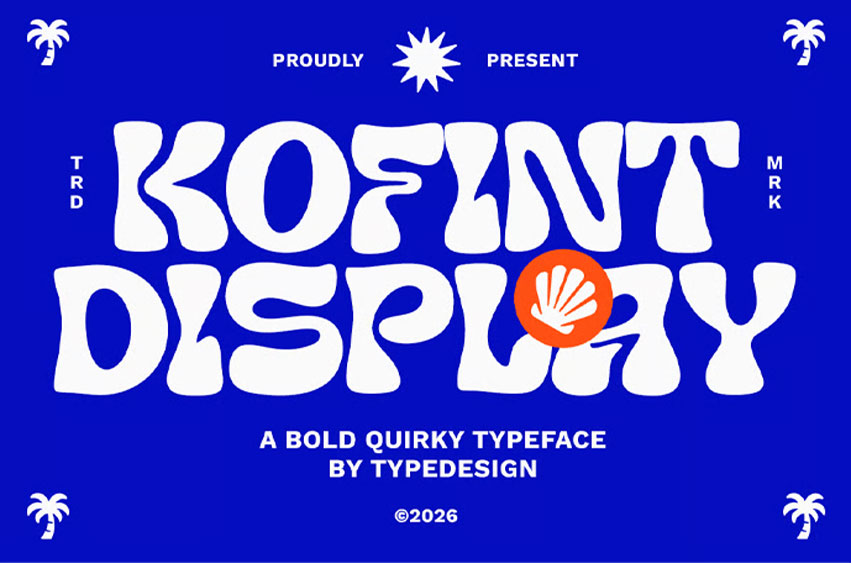
Kofint Font is a bold and expressive typeface inspired by psychedelic visuals, groovy aesthetics, and playful retro culture. Its chunky letterforms, flowing contours, and handcrafted personality make every design feel energetic, fun, and unforgettable.
• Perfect for posters, album covers, and event promotions
• Delivers strong visual impact with unique character shapes
• Adds a nostalgic seventies-inspired atmosphere to creative projects
• Ideal for branding, packaging, social media, and merchandise
Designed to stand out in large headlines and creative compositions, this typeface brings warmth, personality, and retro flair to any project while maintaining excellent readability and artistic appeal.